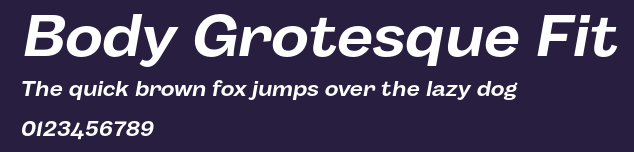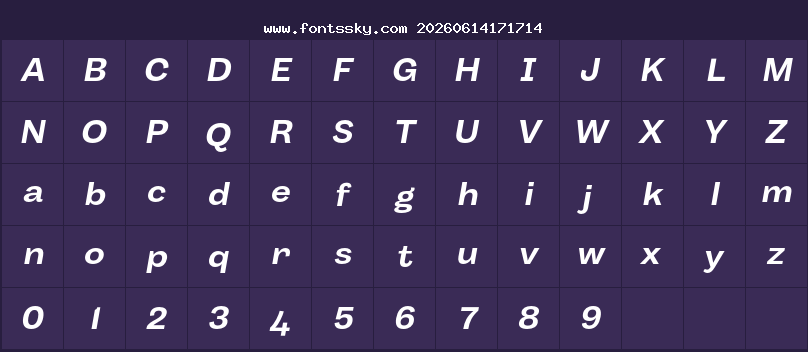
Body Grotesque Fit Preview
• Font Name: Body Grotesque Fit
• Full Font Name: Body Grotesque Fit Bold Italic
• Designer: Cosimo Lorenzo Pancini
• Manufacturer: Studio Kmzero & Zetafonts
About Body Grotesque Fit.otf
Body Grotesque Fit.otf is a modern, elegant sans-serif font designed for ultimate readability and visual harmony. Perfect for branding, headlines, web design, and print materials.